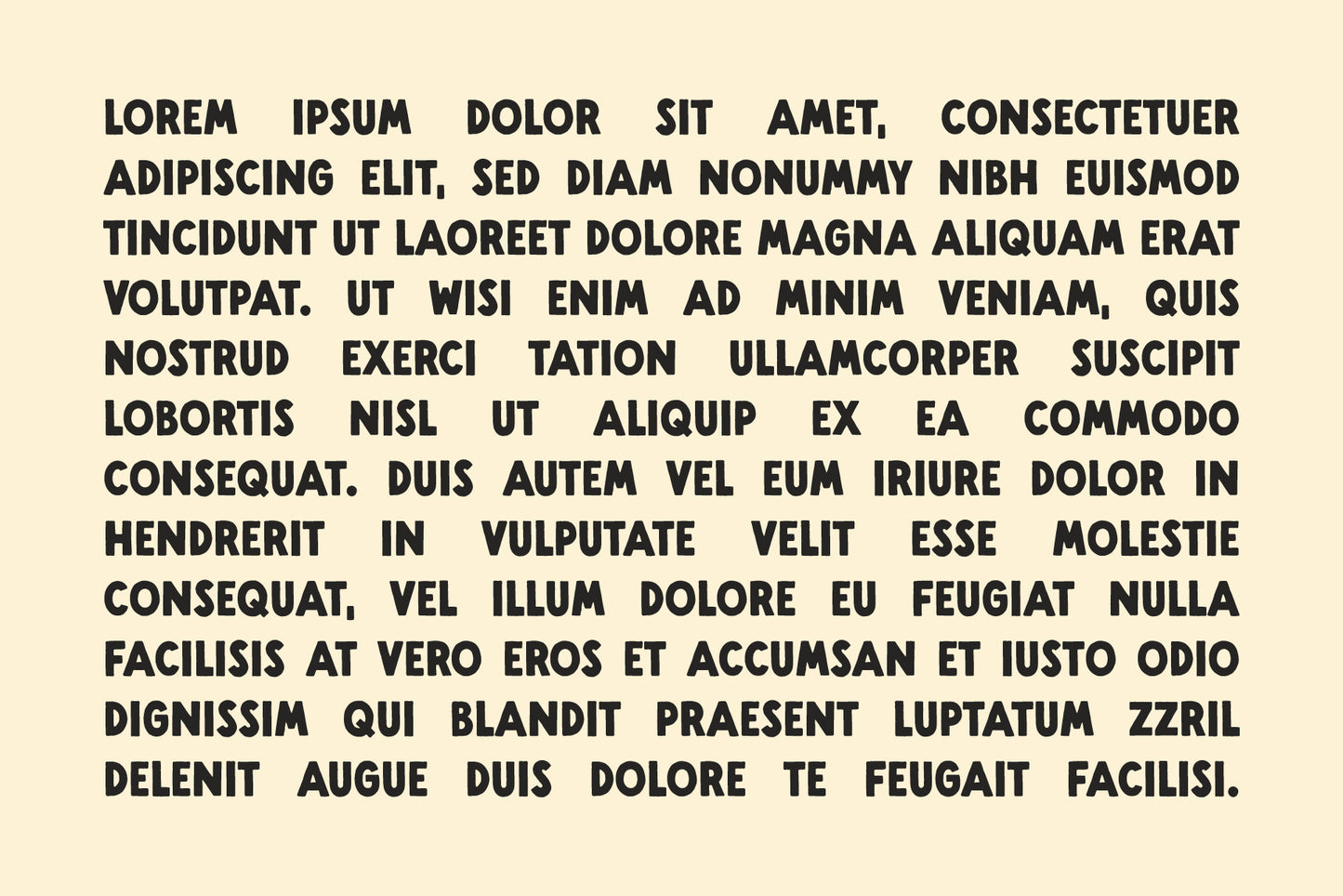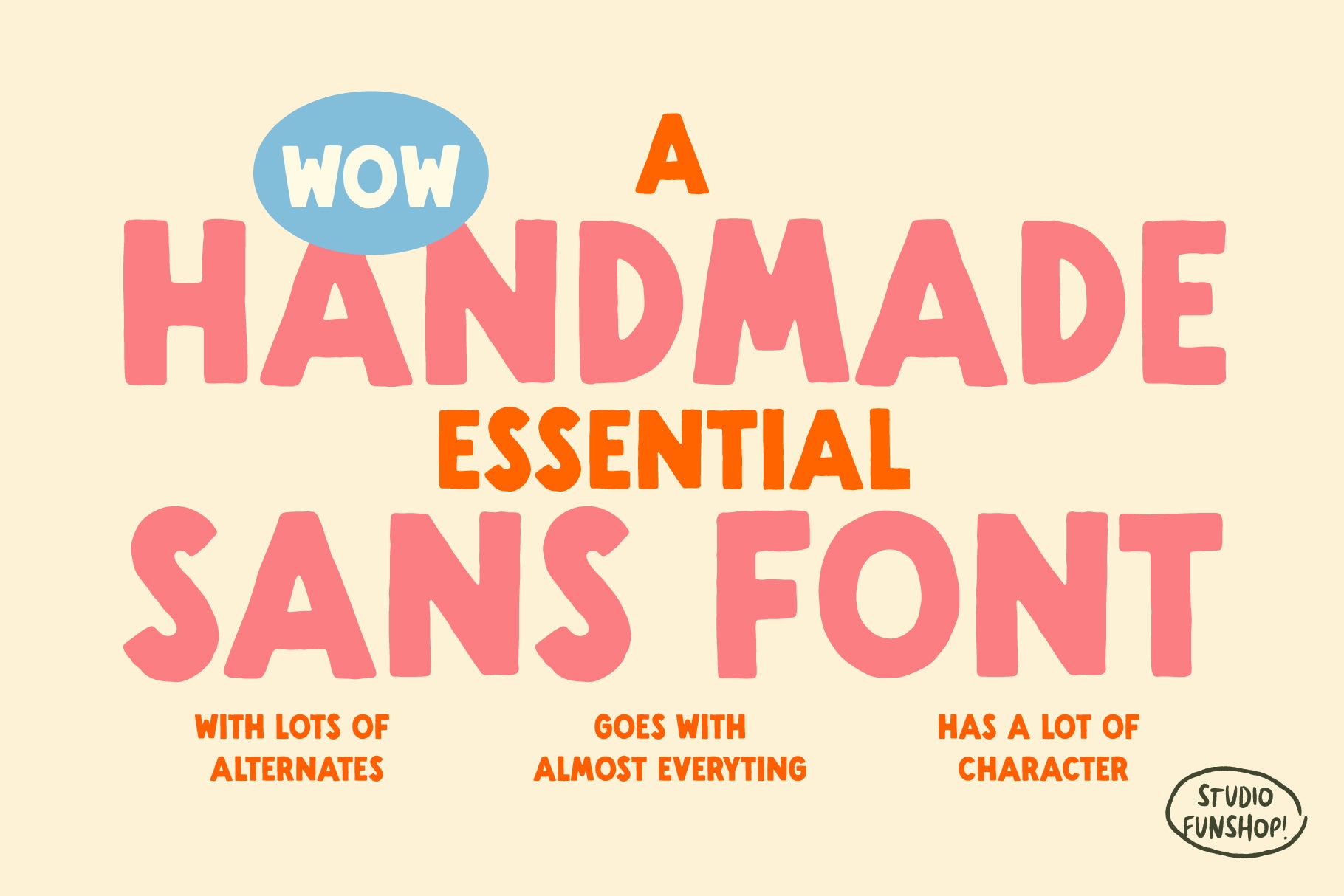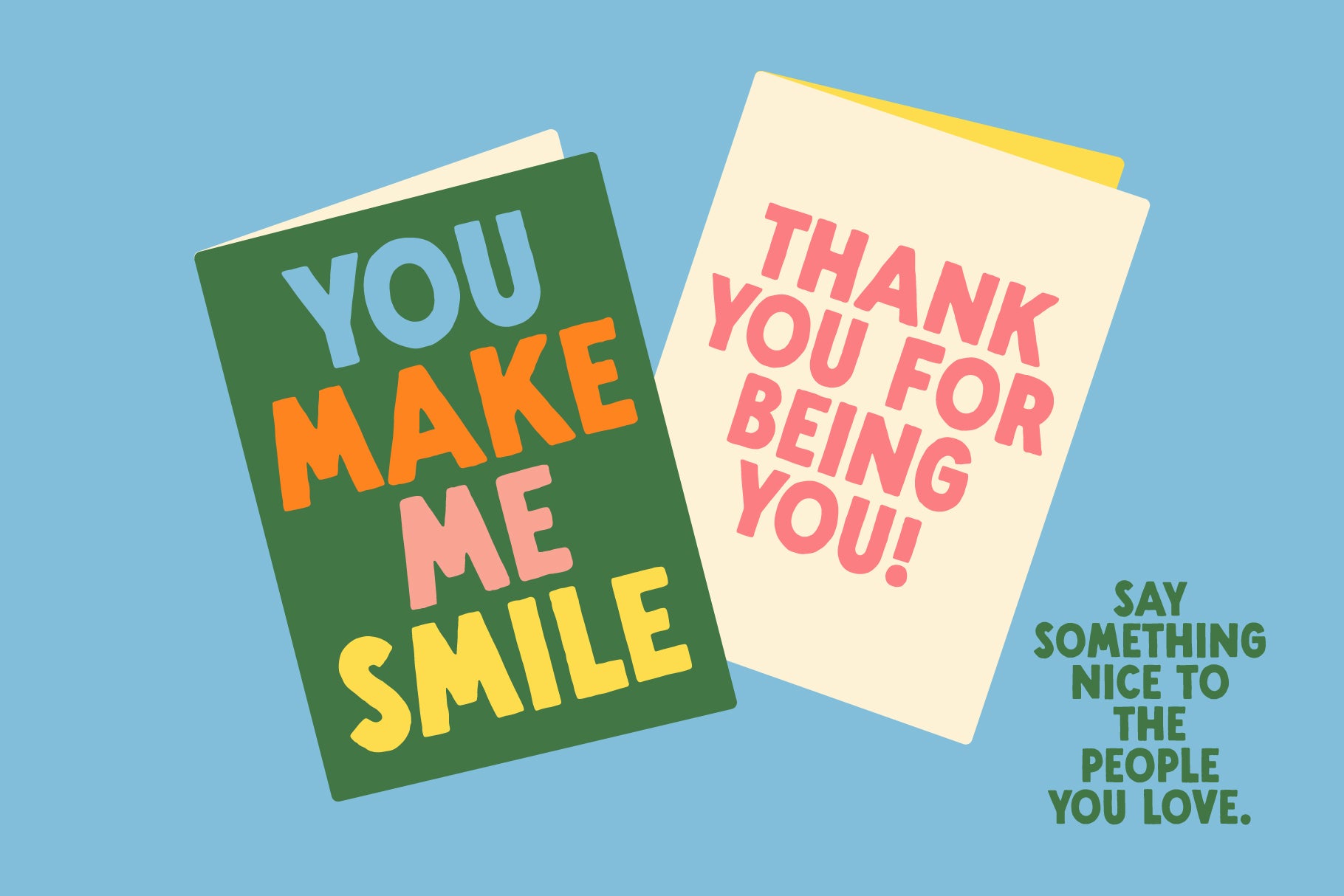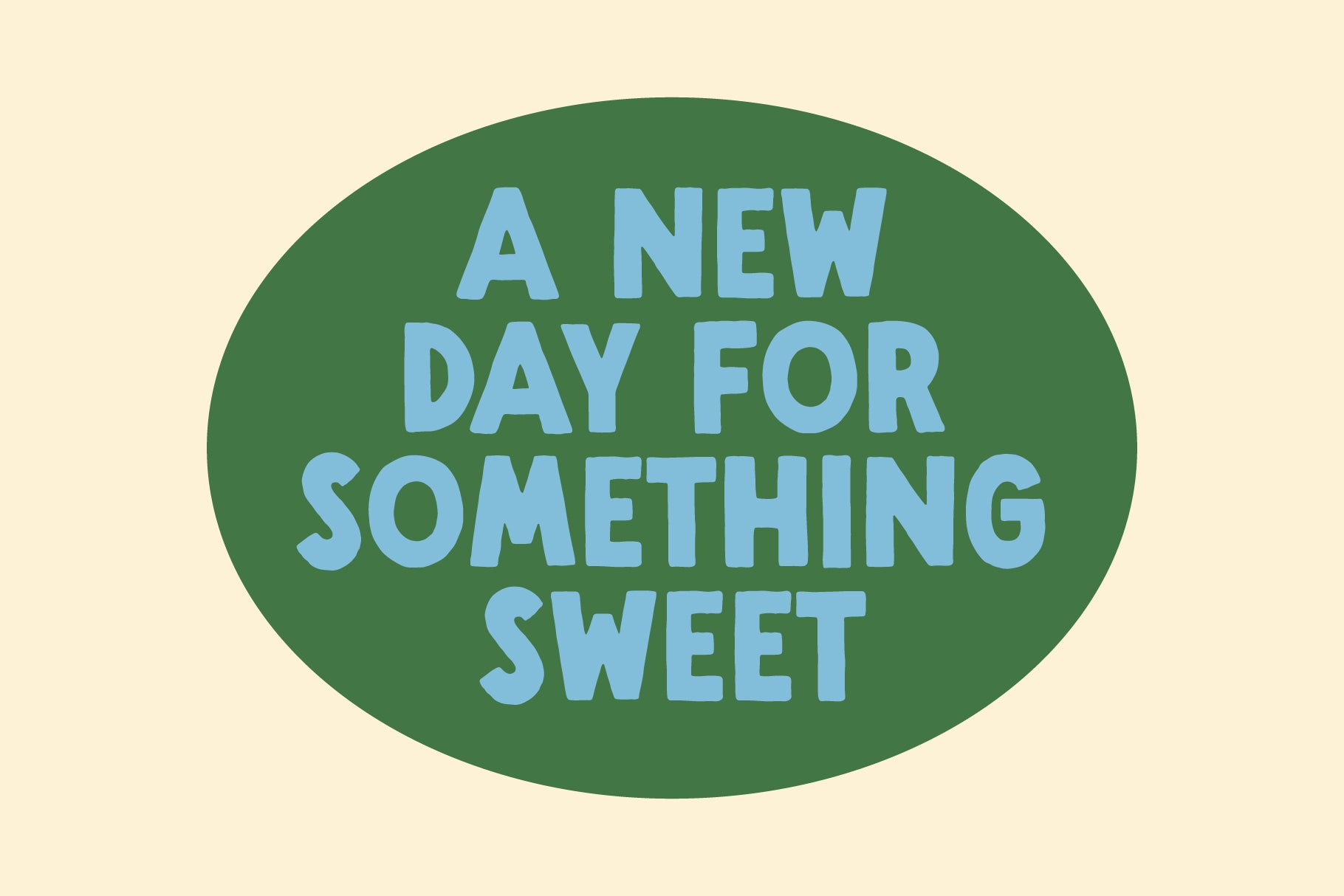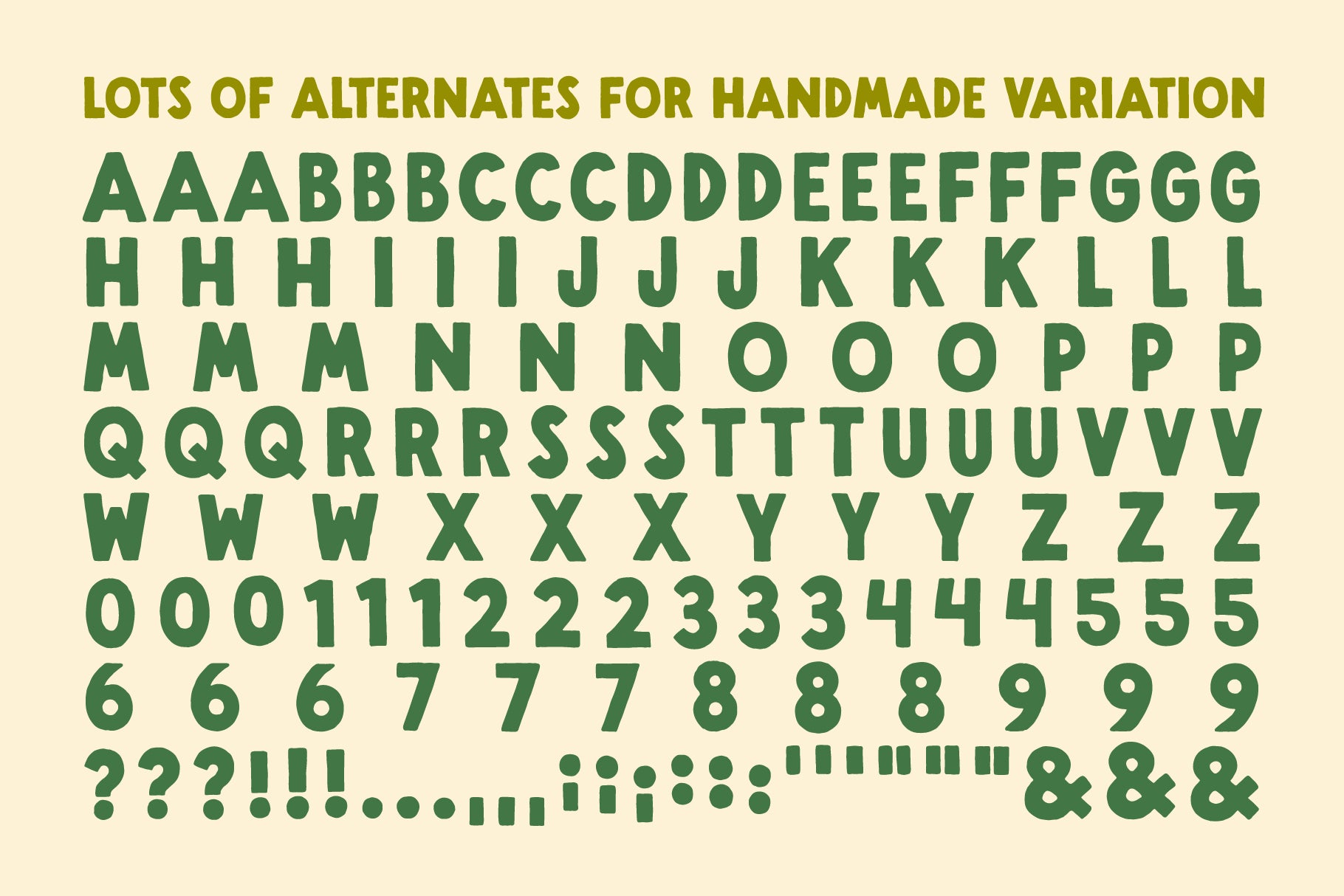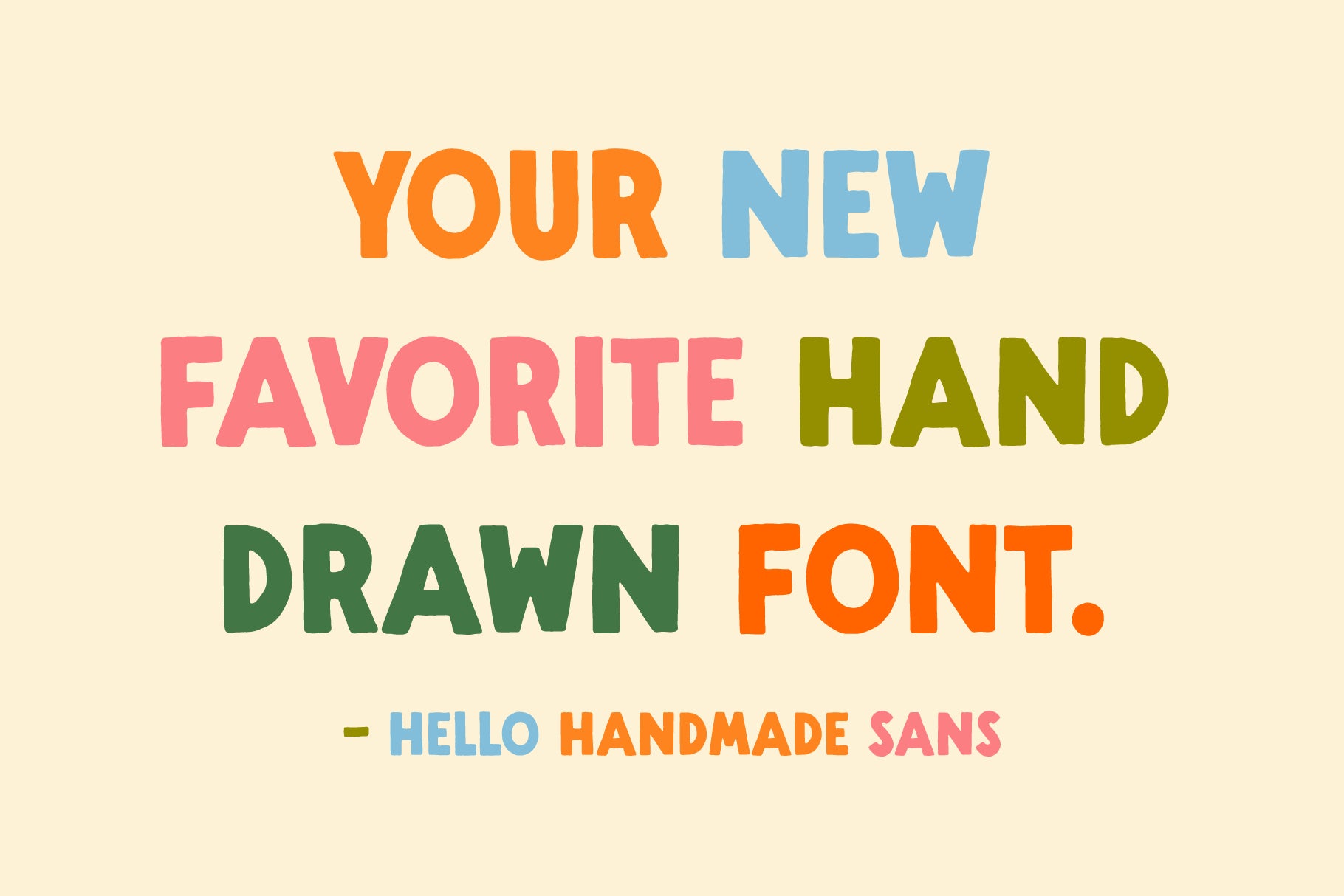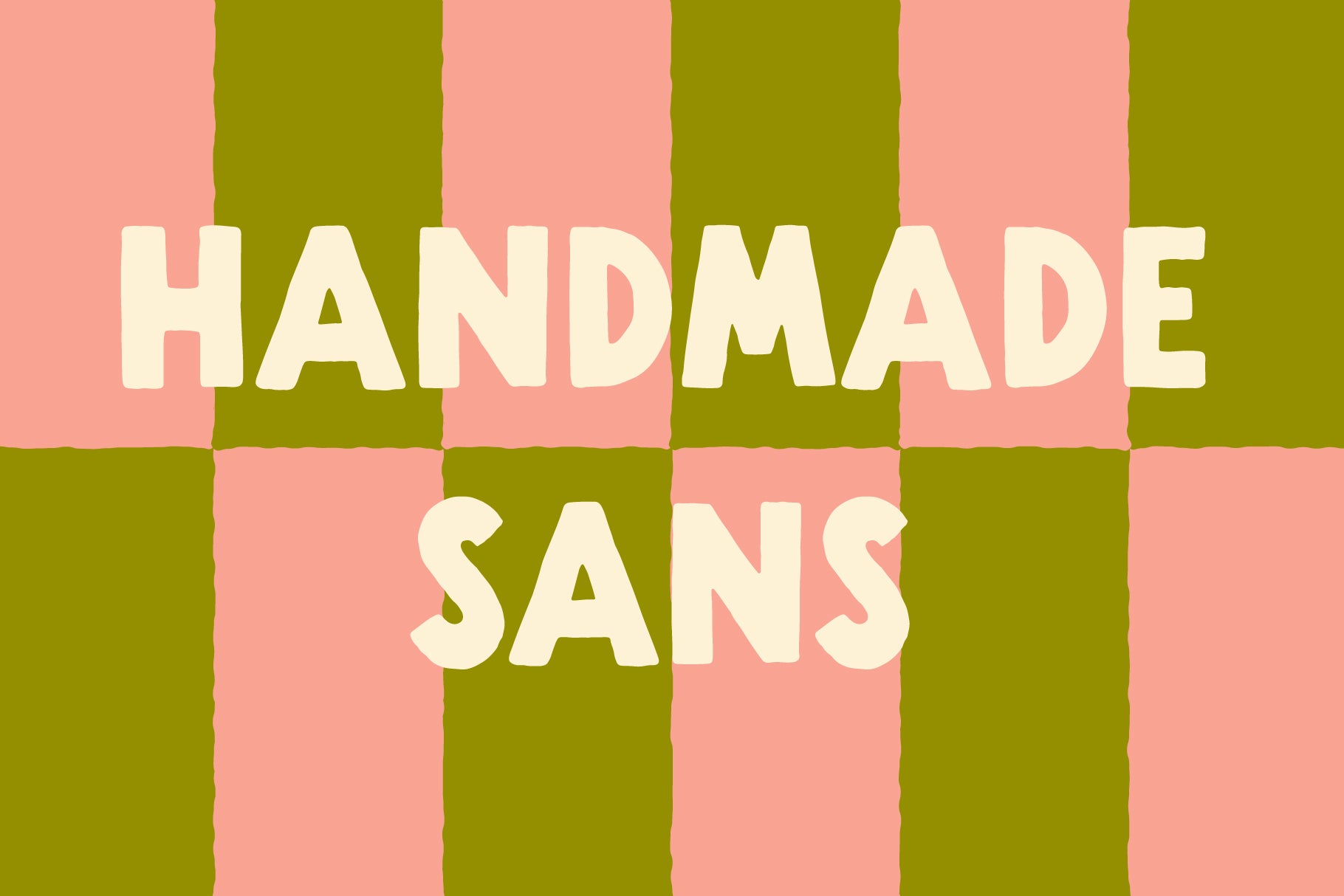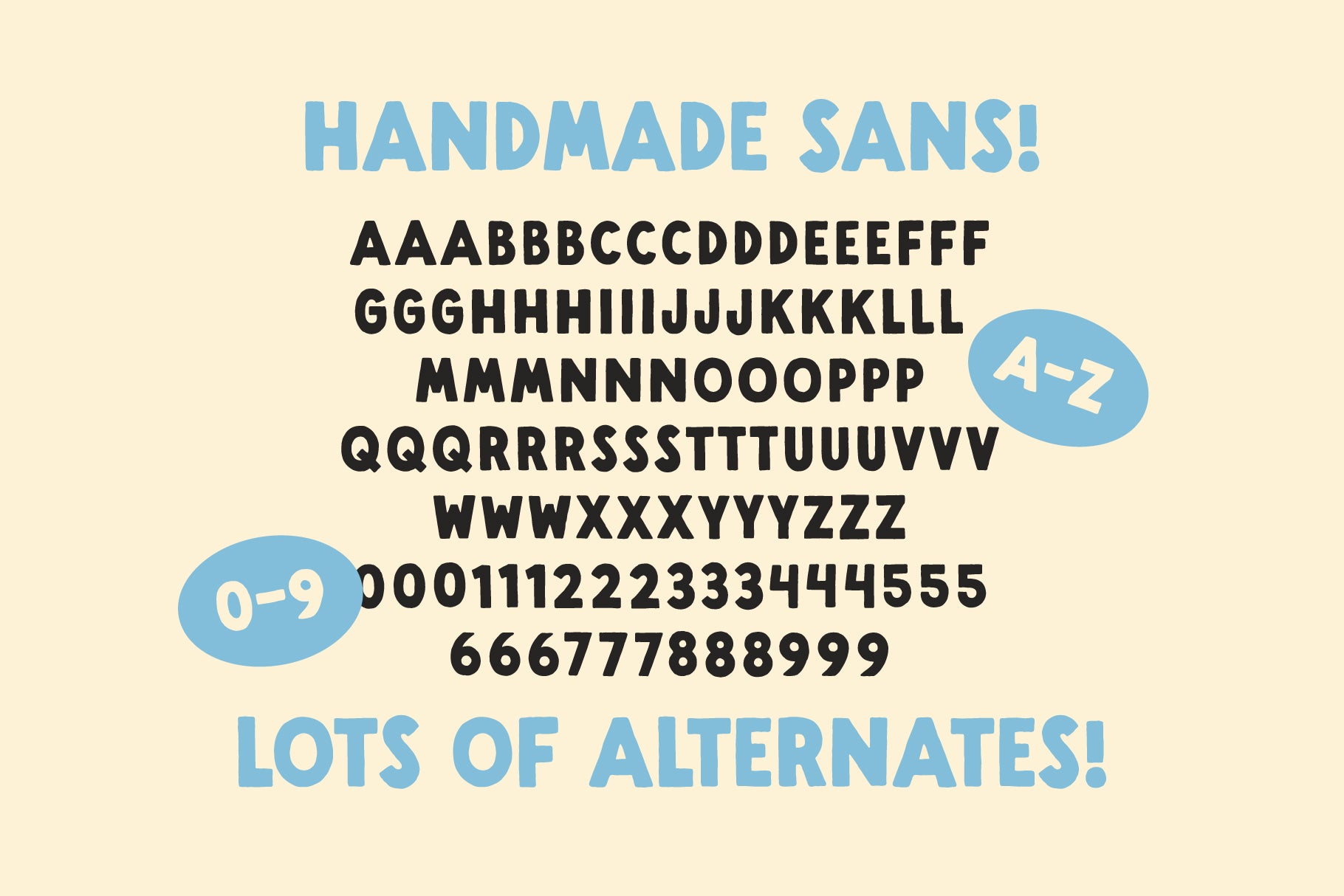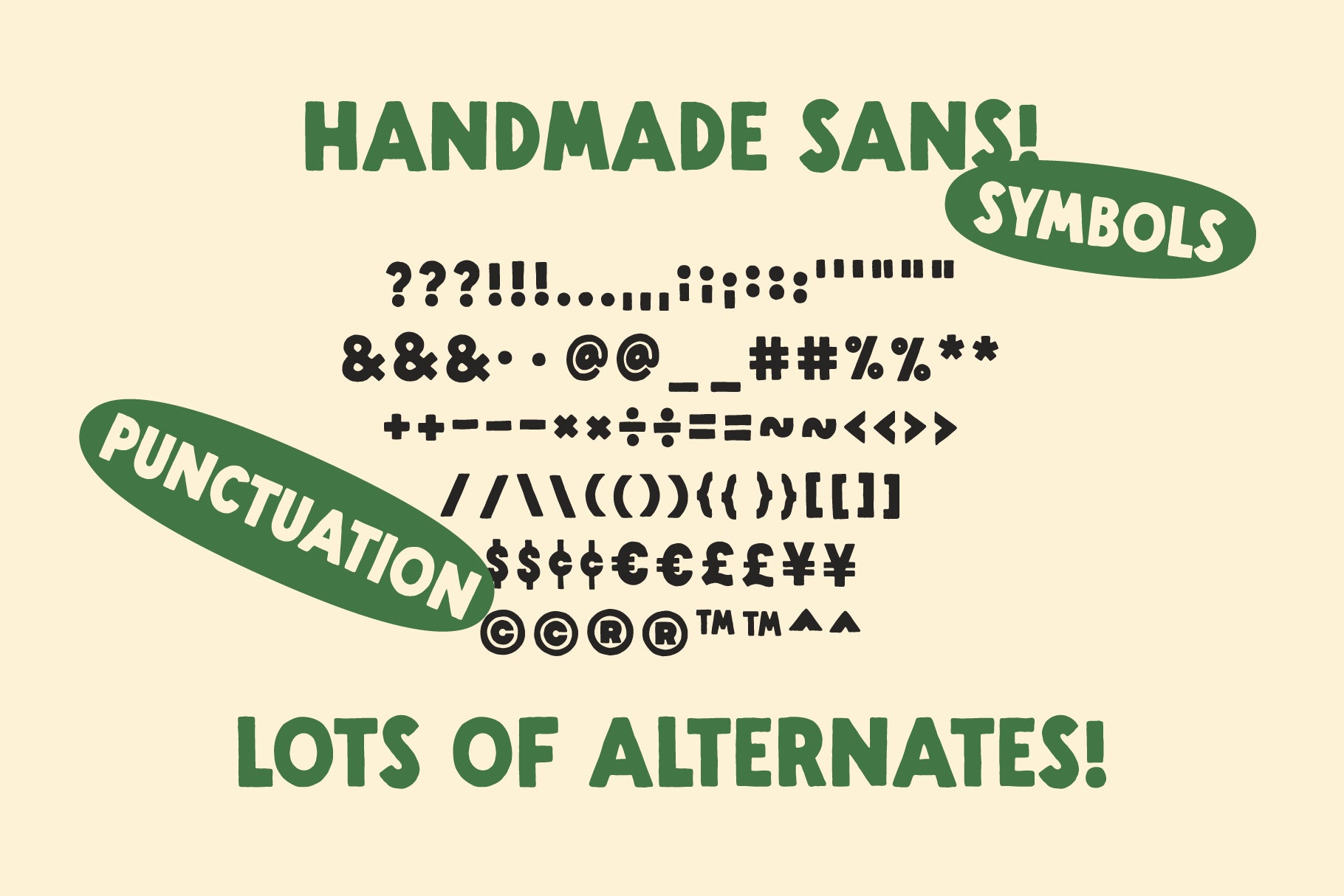
Handmade Sans - A Handlettered Font
A new handmade font inspired by vintage stuff like cool old labels, imperfect printing, hand-lettering, and retro film titles.
This font was hand drawn to look great for logos, display, quotes, art, and a handmade touch. I made lots of alternates to help you create that imperfect hand-lettered goodness!
What's in the font? Uppercase Letters A-Z! Numbers! Symbols! Punctuation! Alternates! (see slides!)